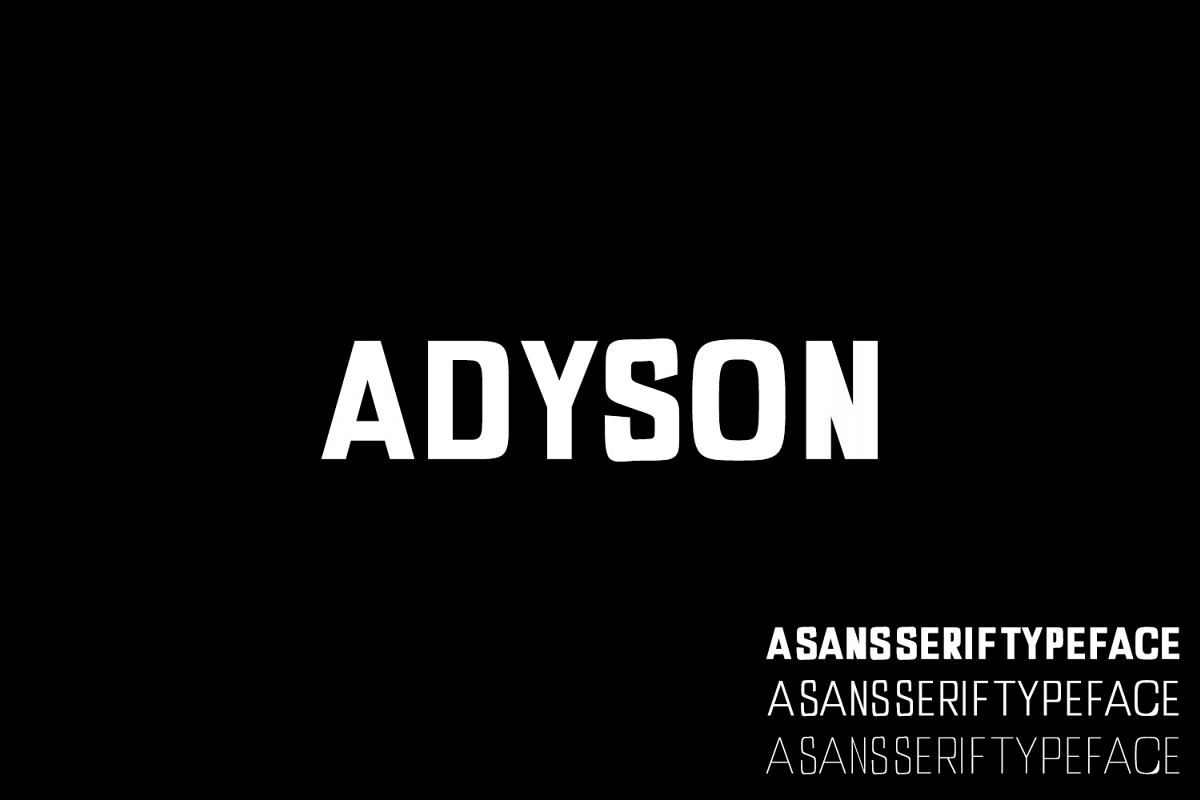
Adyson Sans Serif Typeface
Adyson Sans Serif Typeface is a customized sans serif font family, which contains 4 weights and It features unique and modern sans serif look and feel. Perfect for gorgeous logos, titles, web layouts and branding. It looks gorgeous in all caps with a wide-set spacing if you want to try a classy look, or beautiful on its own in capital and lowercase letters for something completely timeless.
• Font Weight: Regular, Thin, Light and Distorted
• Uppercase Multilingual Letters
• Lowercase Multilingual Letters
• Alternative